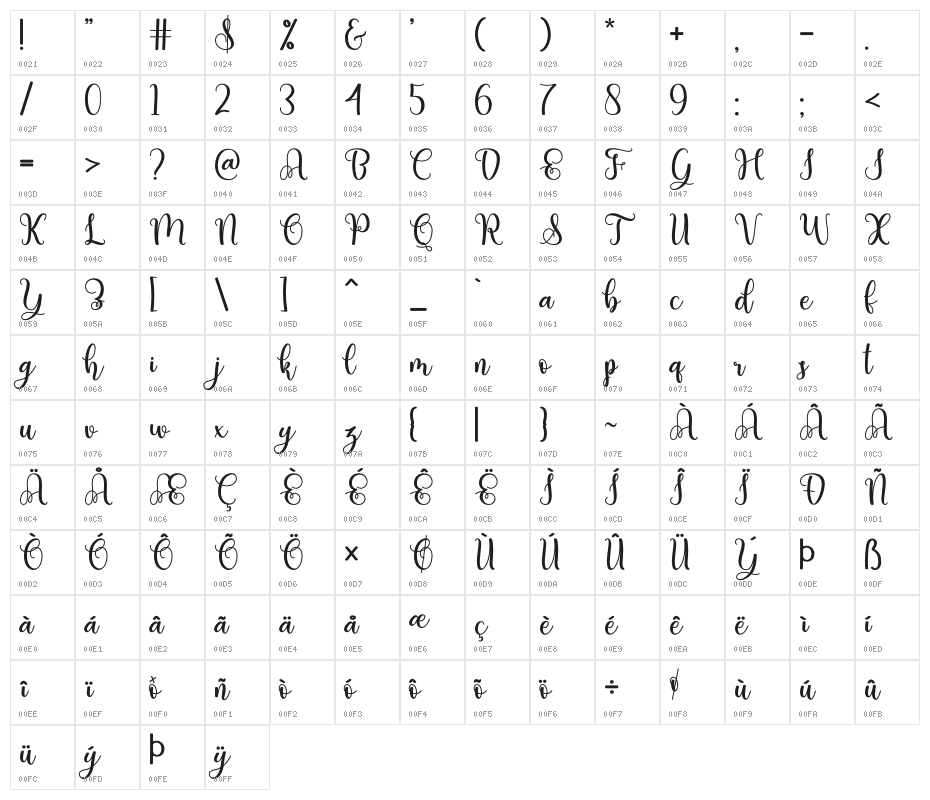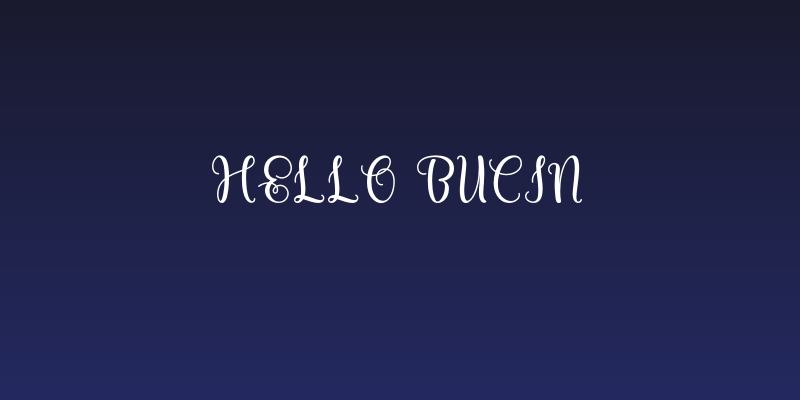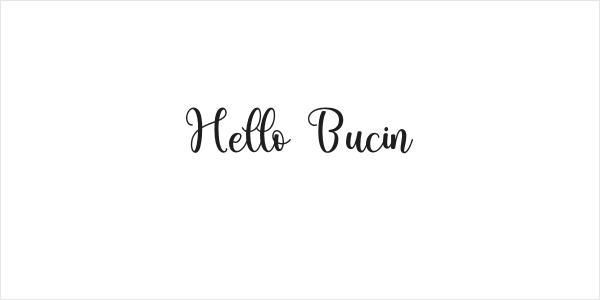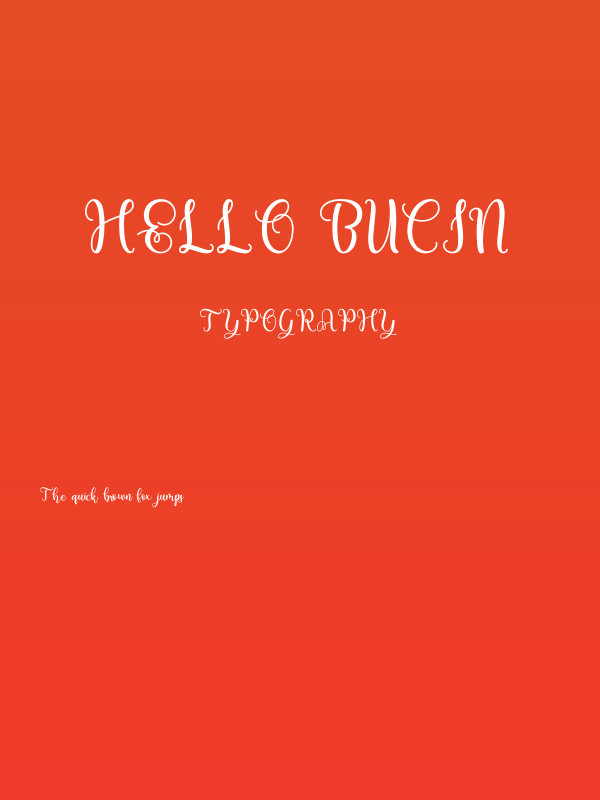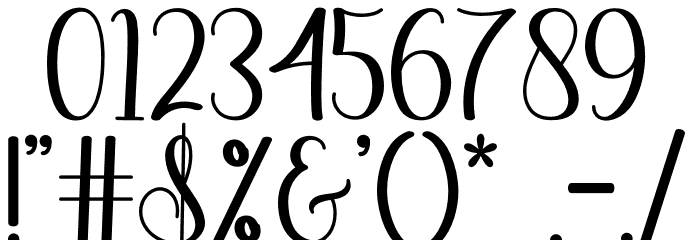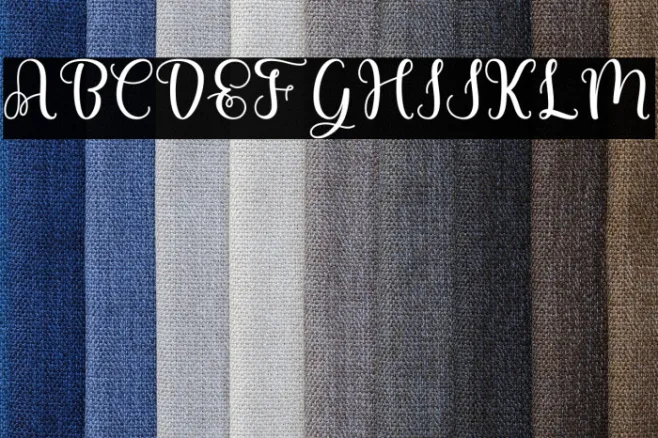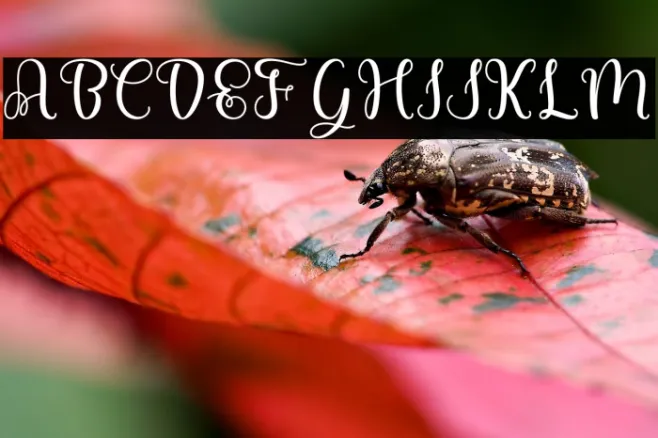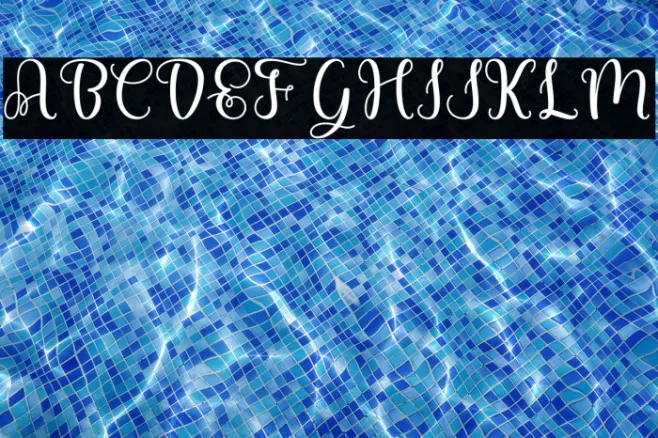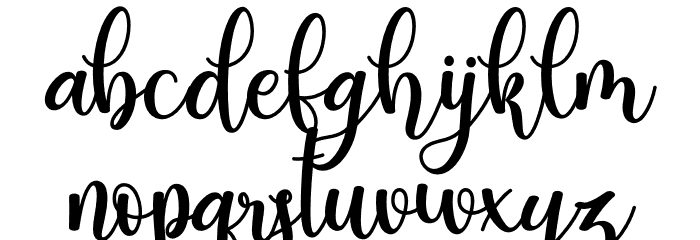
Hello Bucin Font
Hello Bucin Description
This font features a playful and whimsical script style with elegant, flowing lines and loops. The uppercase letters are characterized by their decorative swirls and flourishes, giving them a unique and artistic appearance. The lowercase letters maintain a consistent flow, with some characters extending below the baseline, adding to the font's charm. The numerals are bold and slightly elongated, complementing the overall style. Special characters are creatively designed, maintaining the font's playful aesthetic. This font is ideal for projects that require a touch of elegance and creativity.
HELLO-BUCIN UPPERCASE
HELLO-BUCIN LOWERCASE
HELLO-BUCIN OTHER CHARS
| Use Case | Logos, Invitations, Creative design |
| Proposed Projects | Ideal for wedding invitations, greeting cards, branding, and creative design projects. |